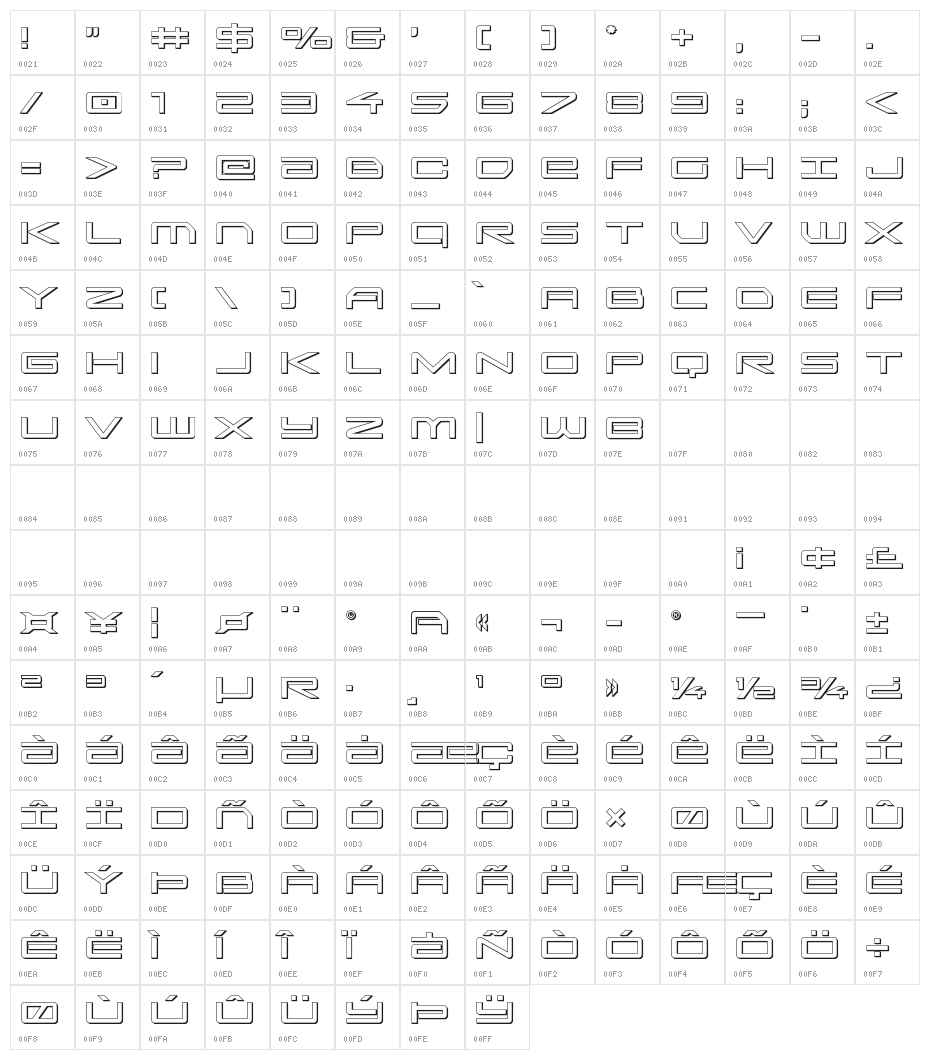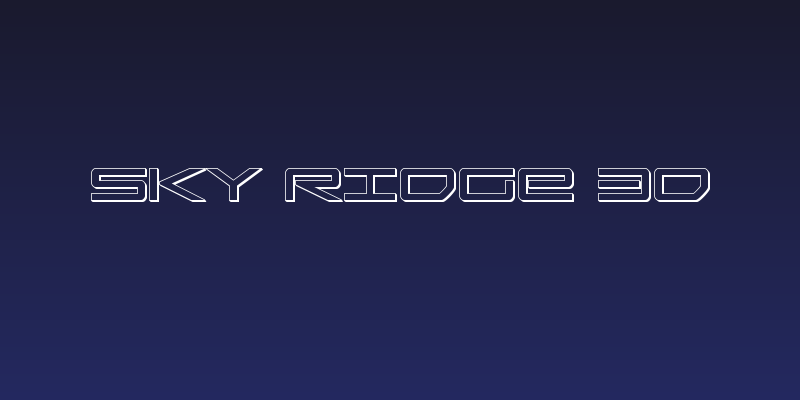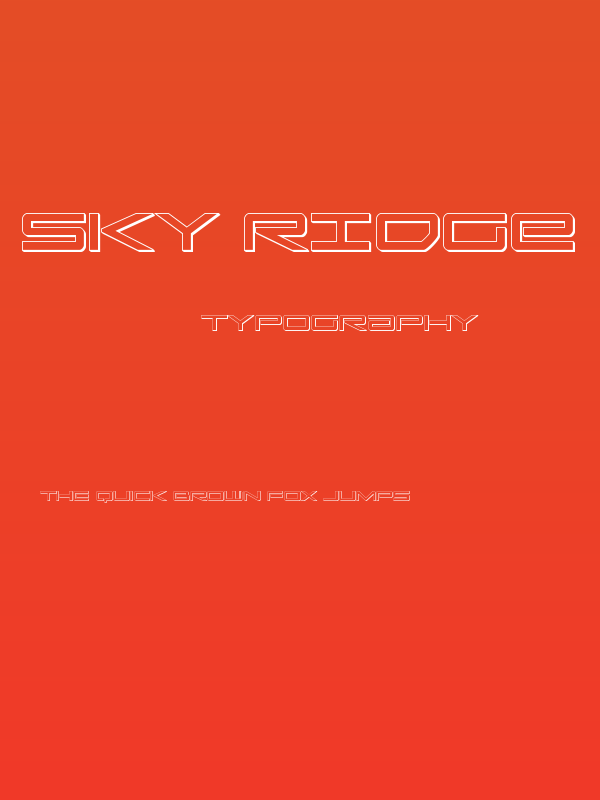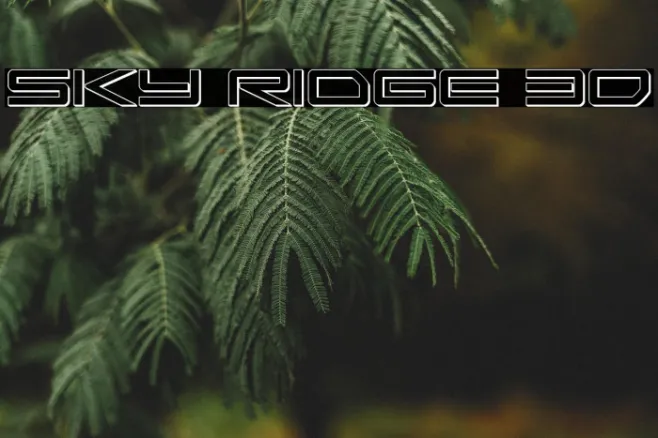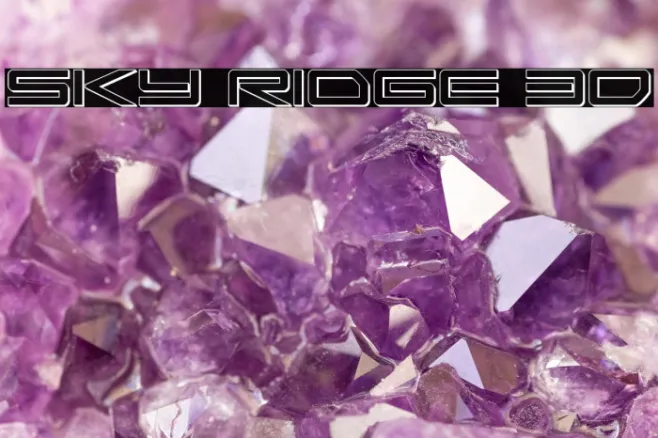
Sky Ridge 3D Font
Sky Ridge 3D Description
This font features a futuristic and geometric design with a 3D effect, characterized by its bold, outlined letters. The uppercase and lowercase letters share a similar structure, with sharp angles and clean lines that create a sense of depth. The numerals and special characters maintain this consistent style, making the font suitable for modern and tech-oriented projects. Its unique appearance is eye-catching and ideal for creating a strong visual impact.